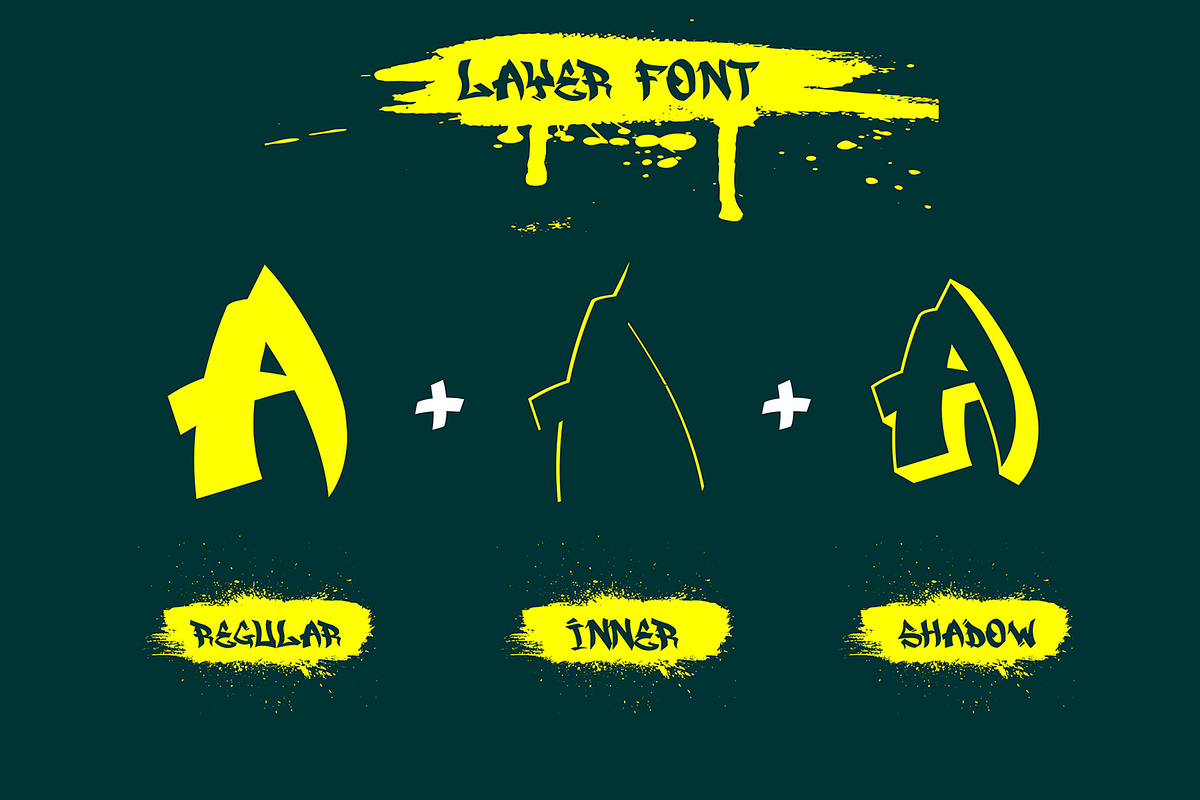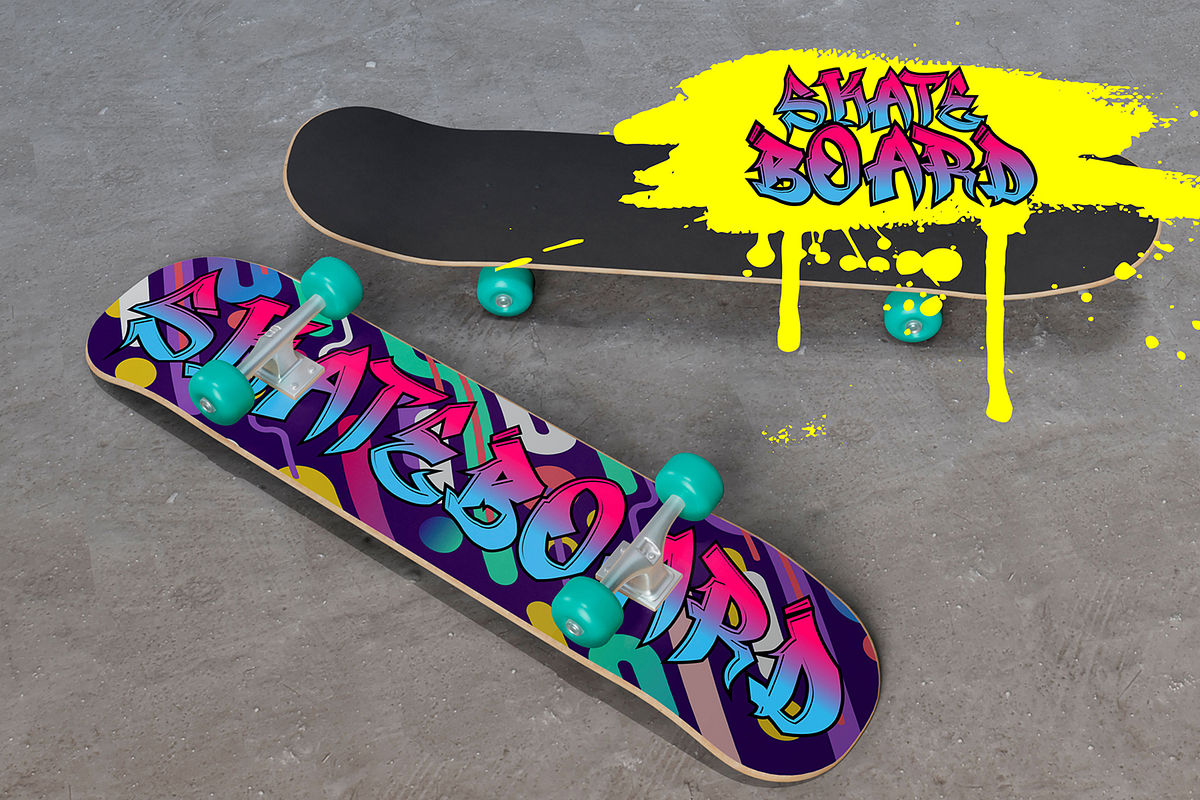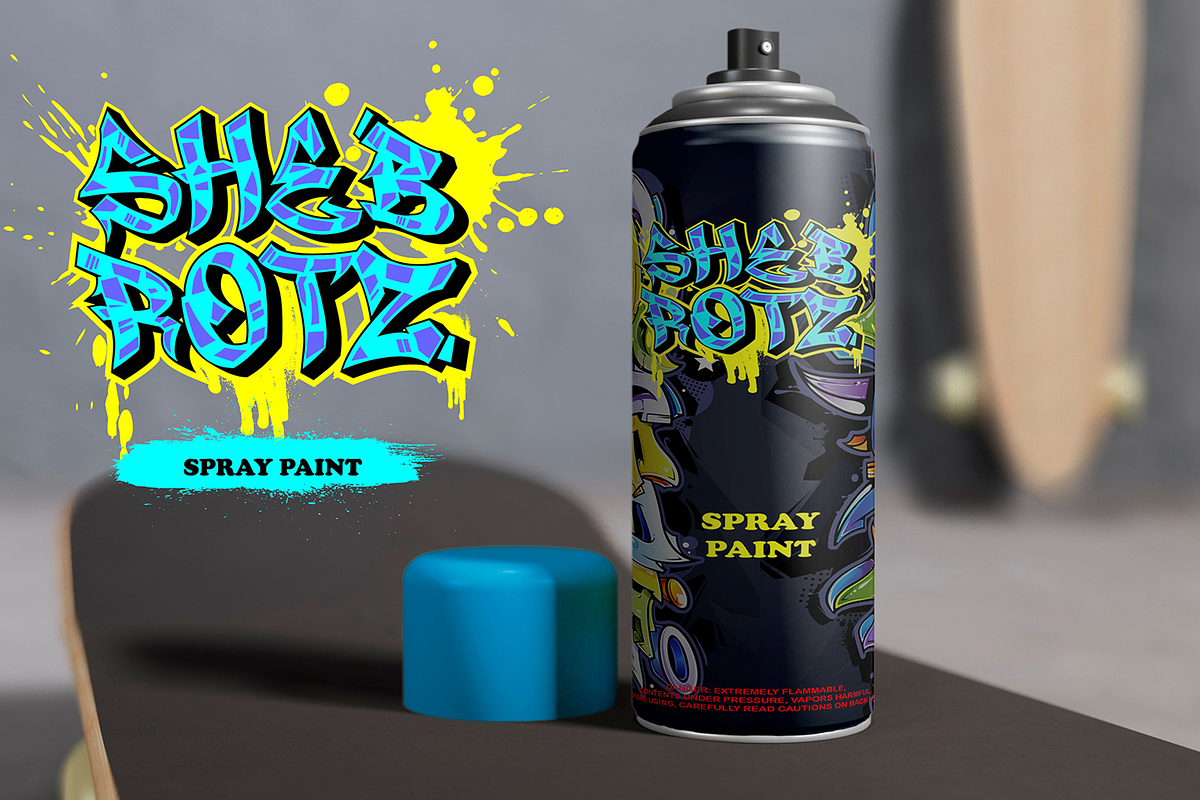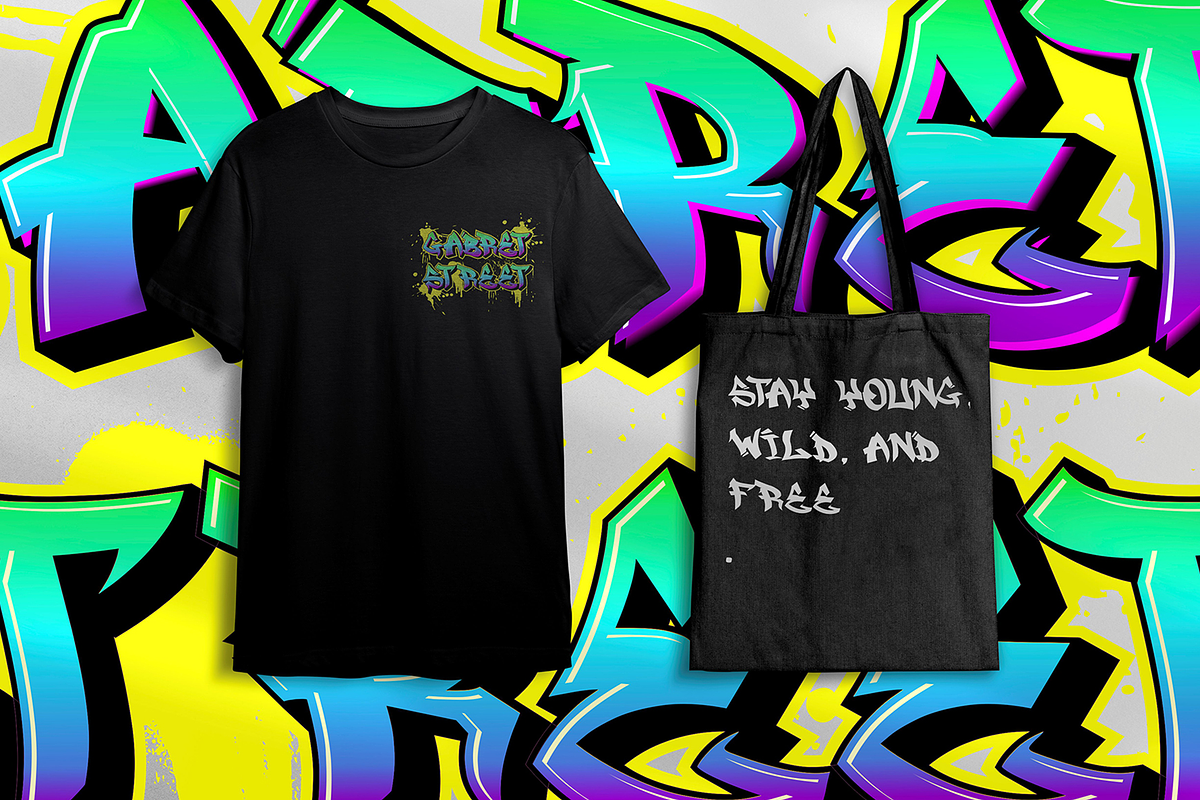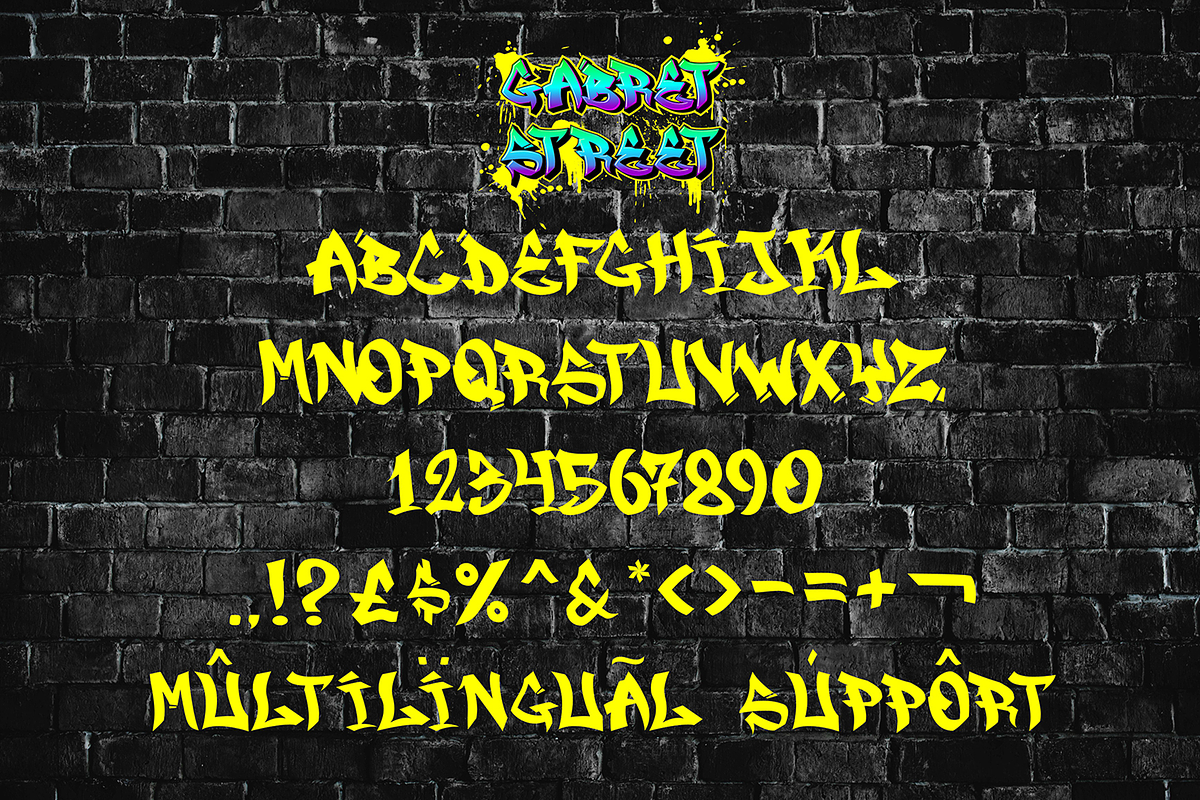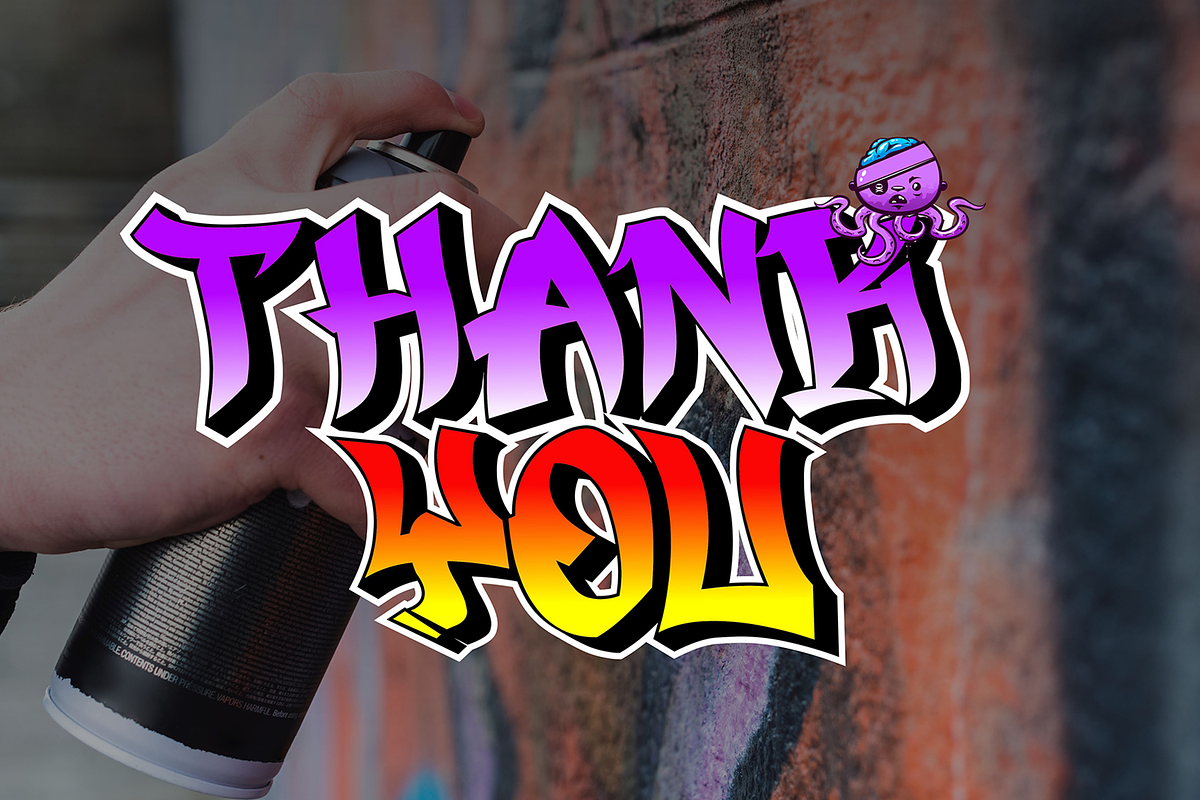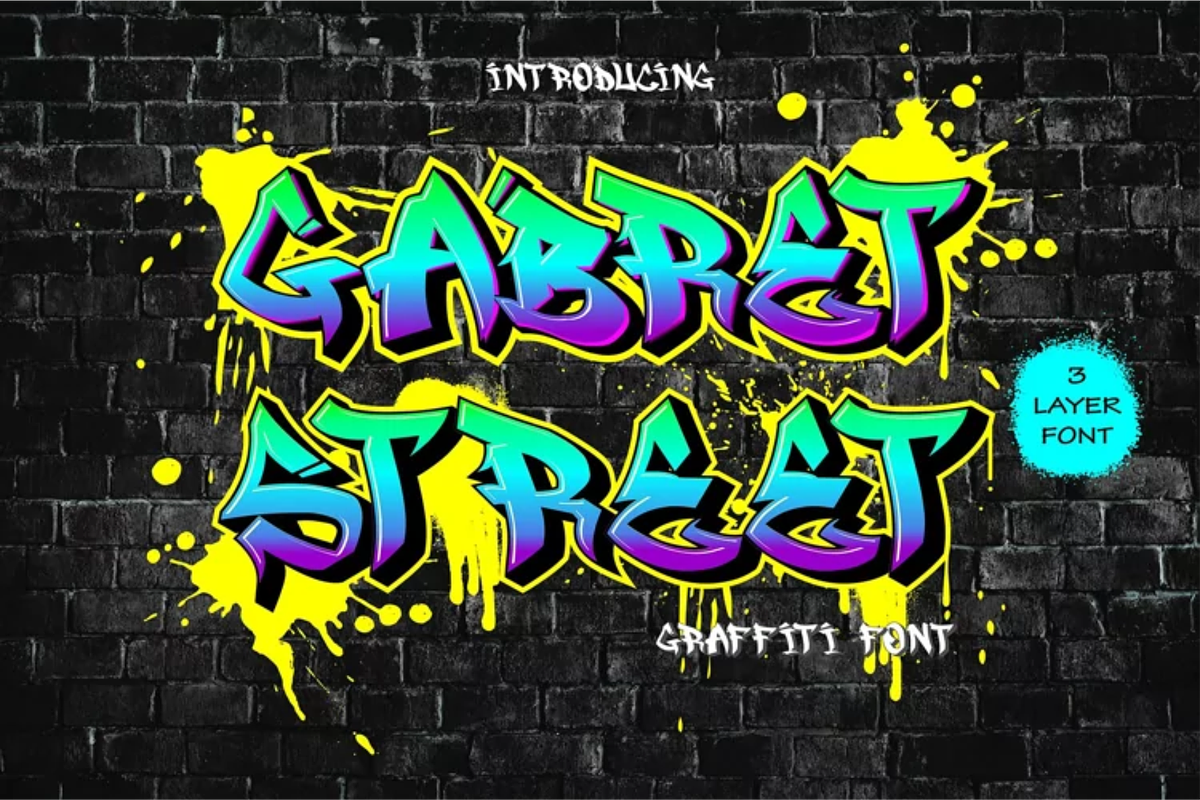
Gabret Street
"Gabret Street" is an urban graffiti font characterized by sharp edges and a bold look. Ideal for music posters, apparel designs, shirts, and streetwear, this font brings a touch of edginess to your projects. The unique style of "Gabret Street" makes it the perfect choice for death metal or urban graffiti themes. Whether you want to create a strong and powerful statement or simply add a touch of attitude to your designs, "Gabret Street" is the font for you.